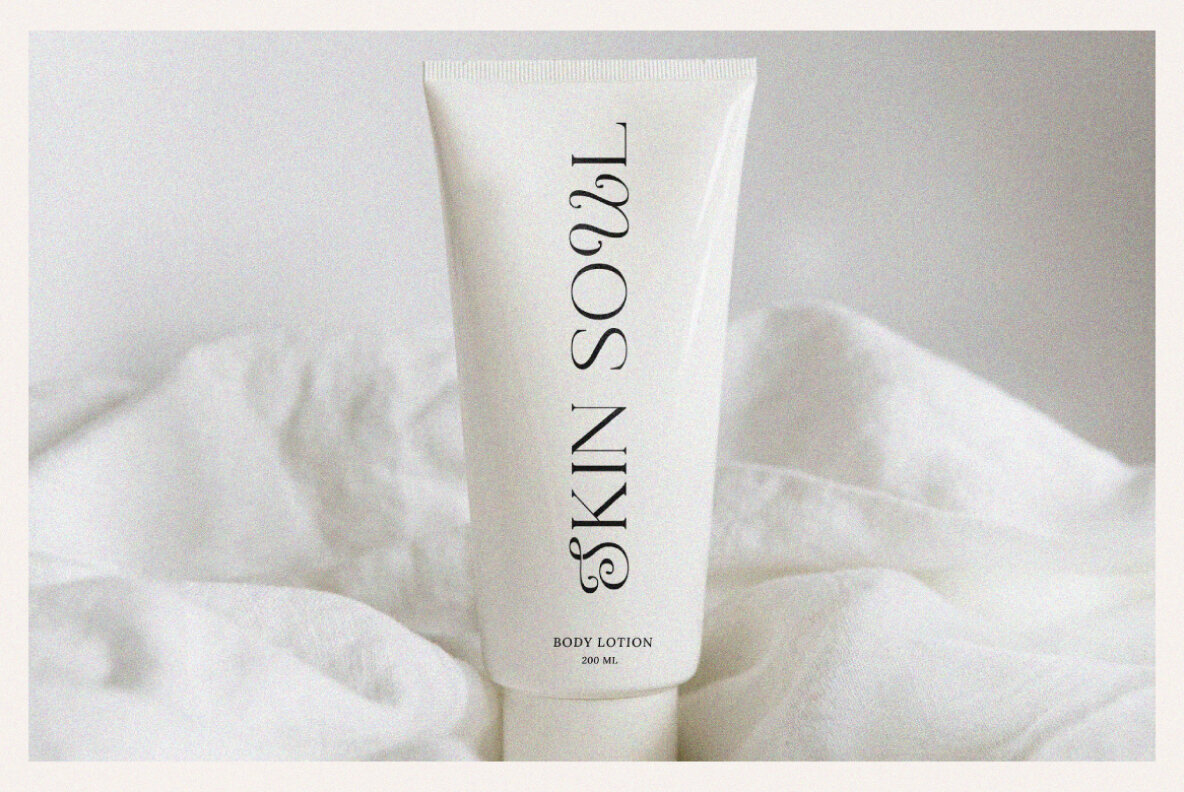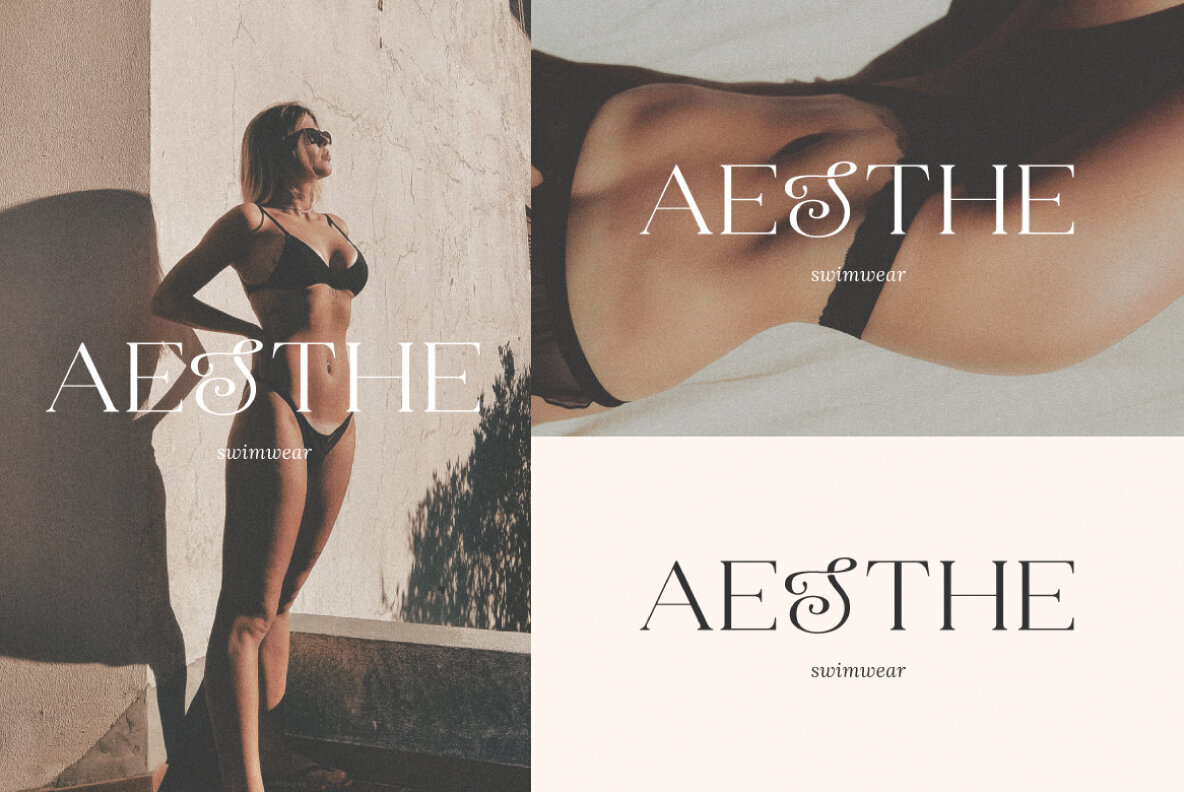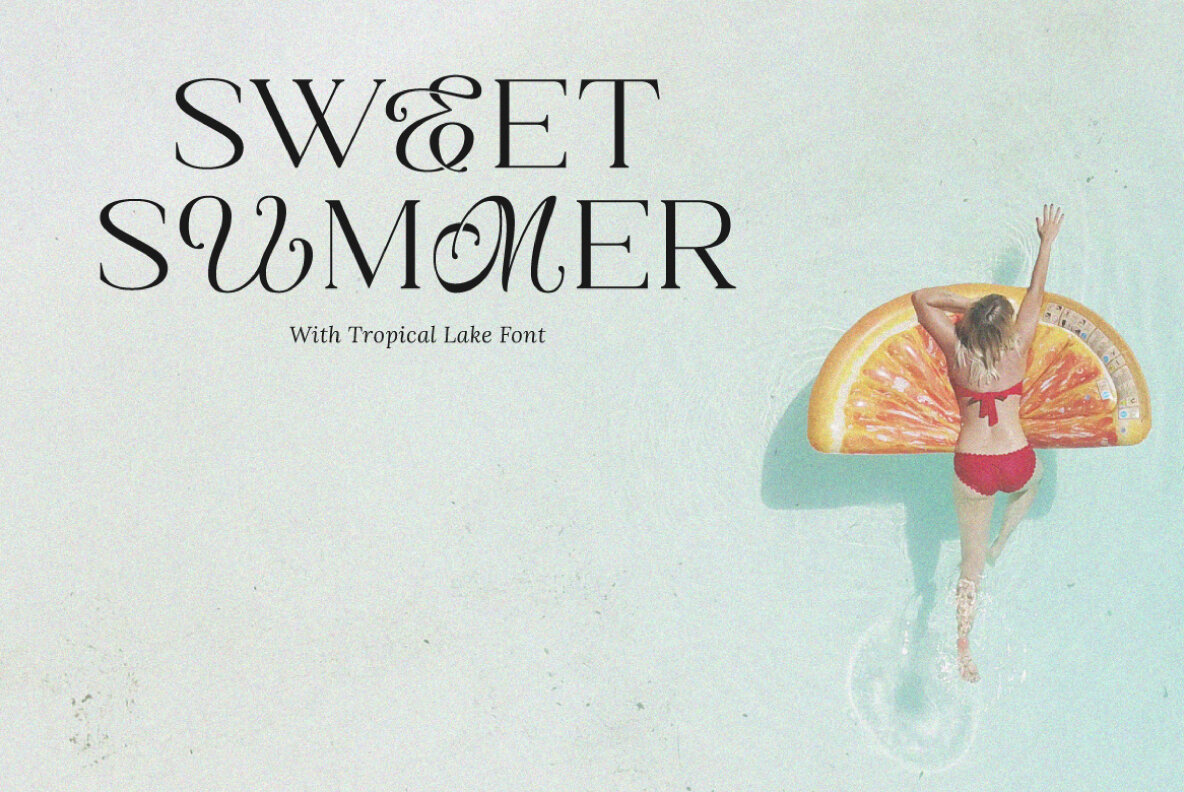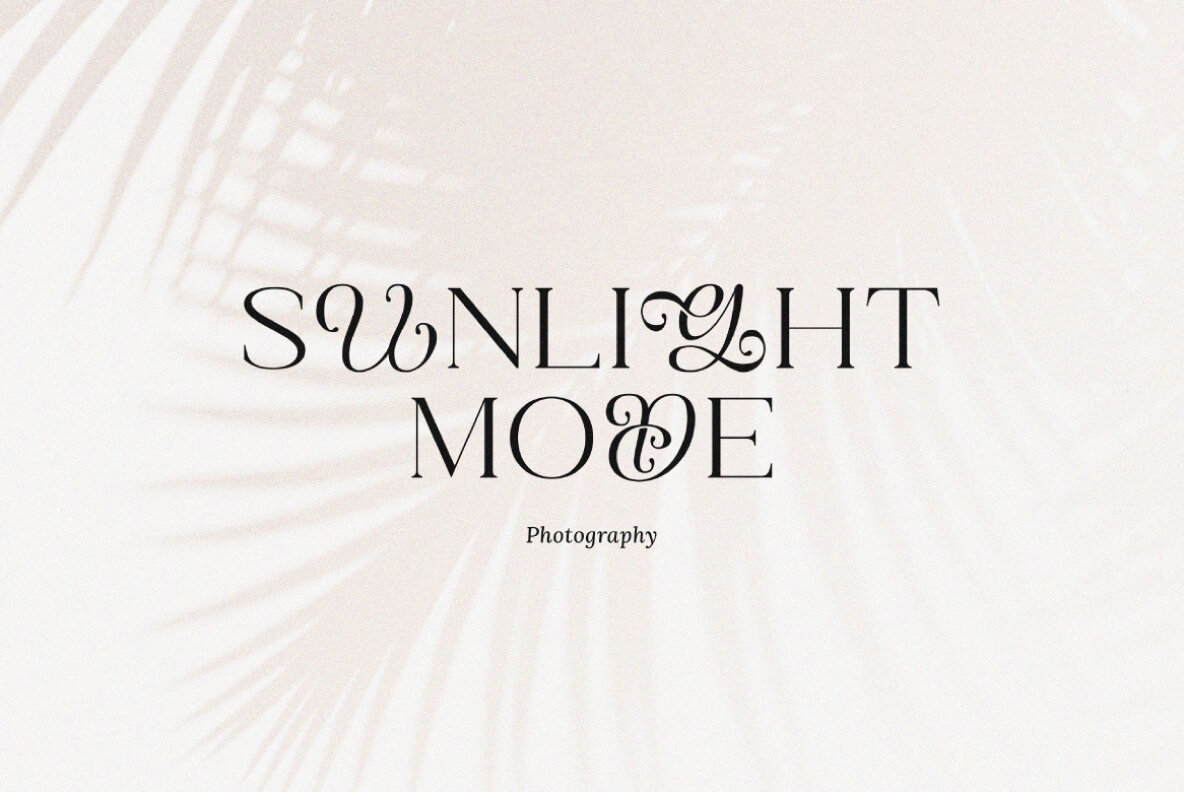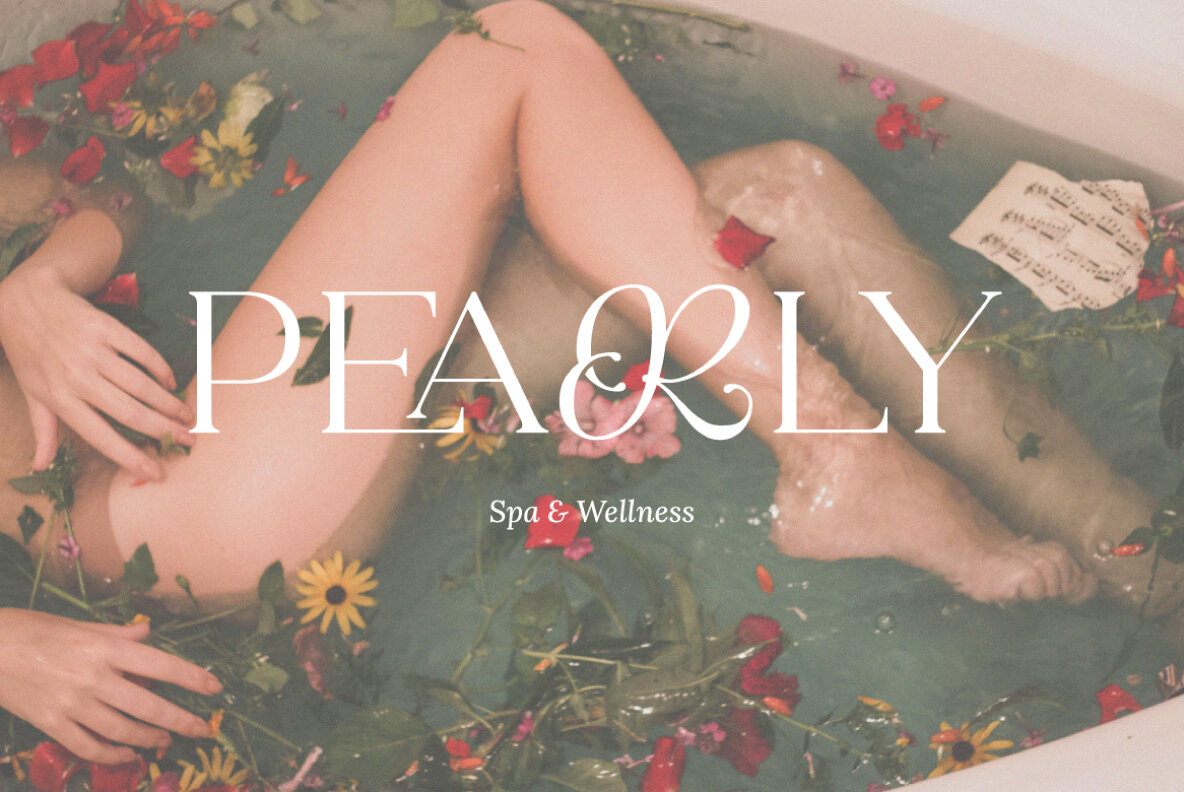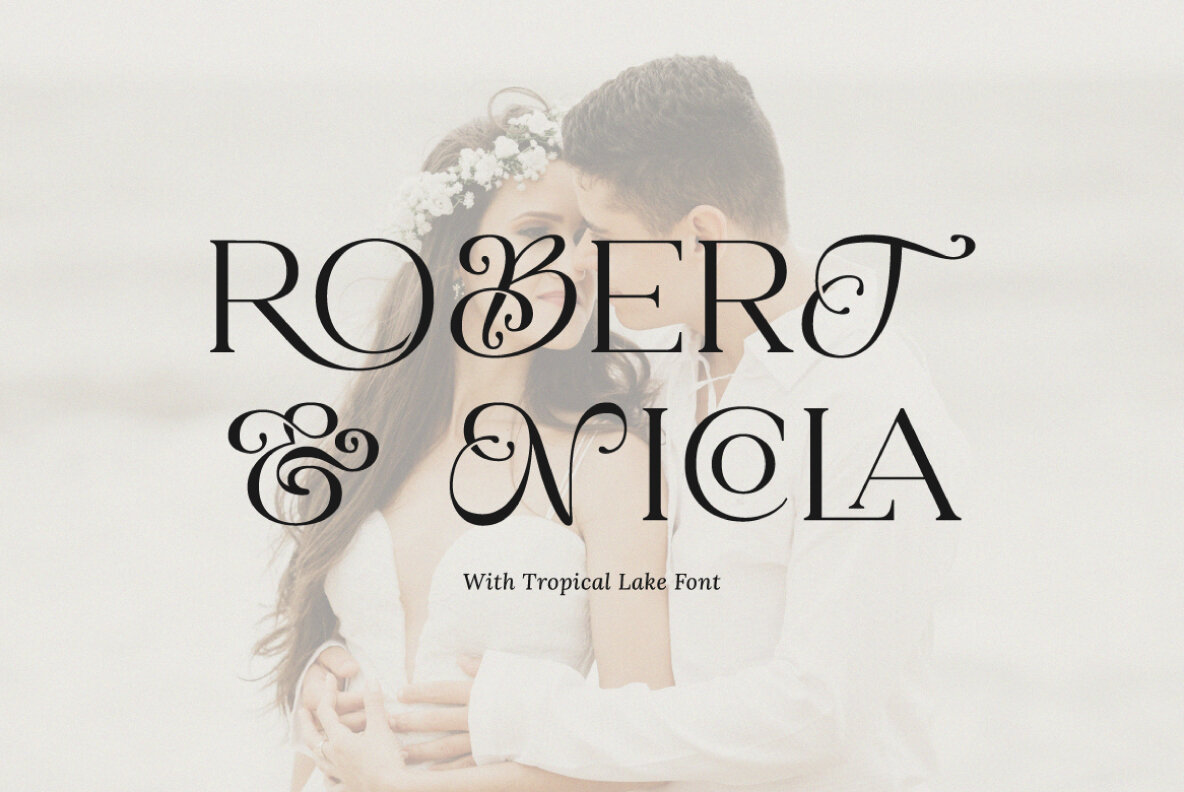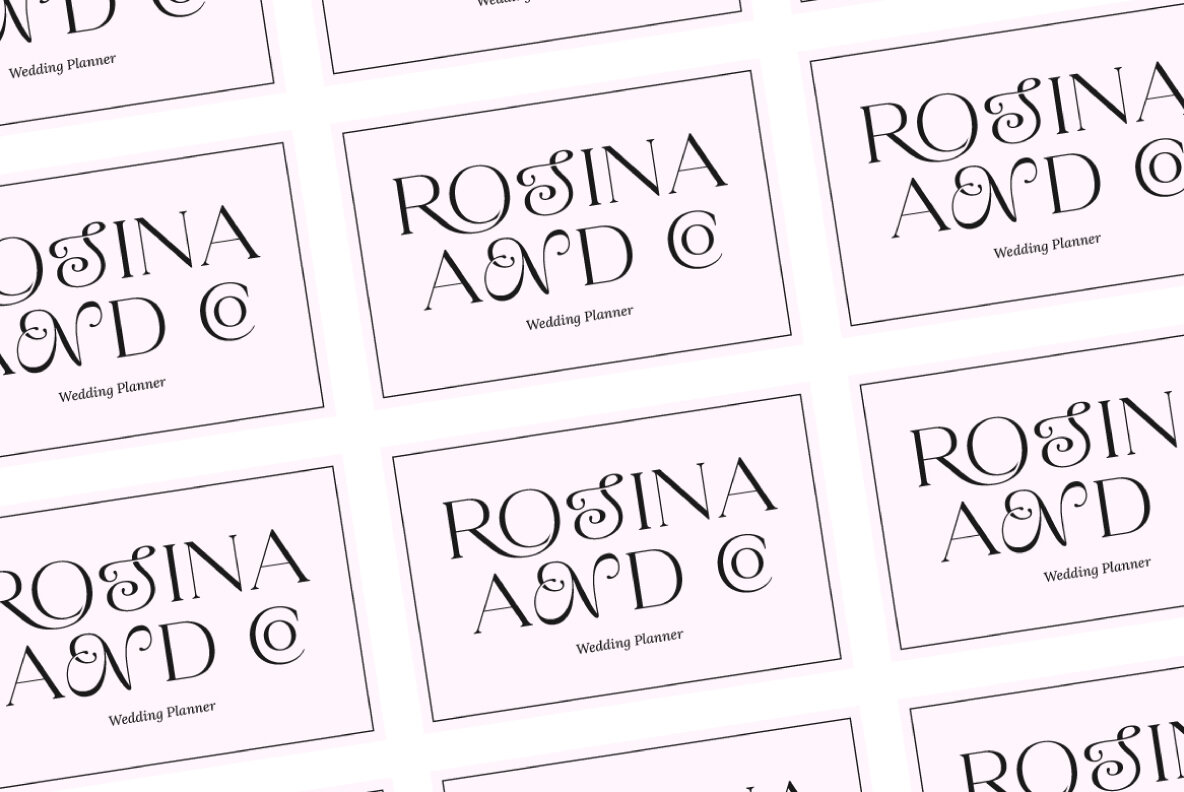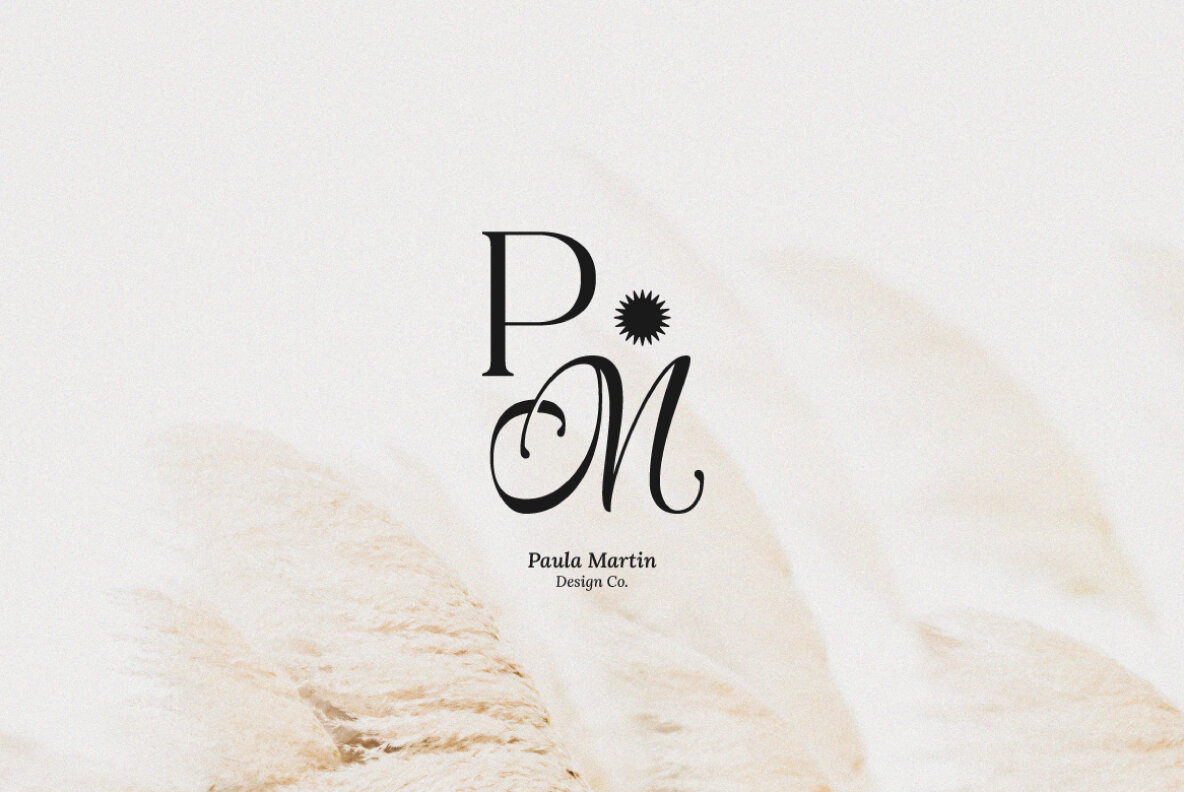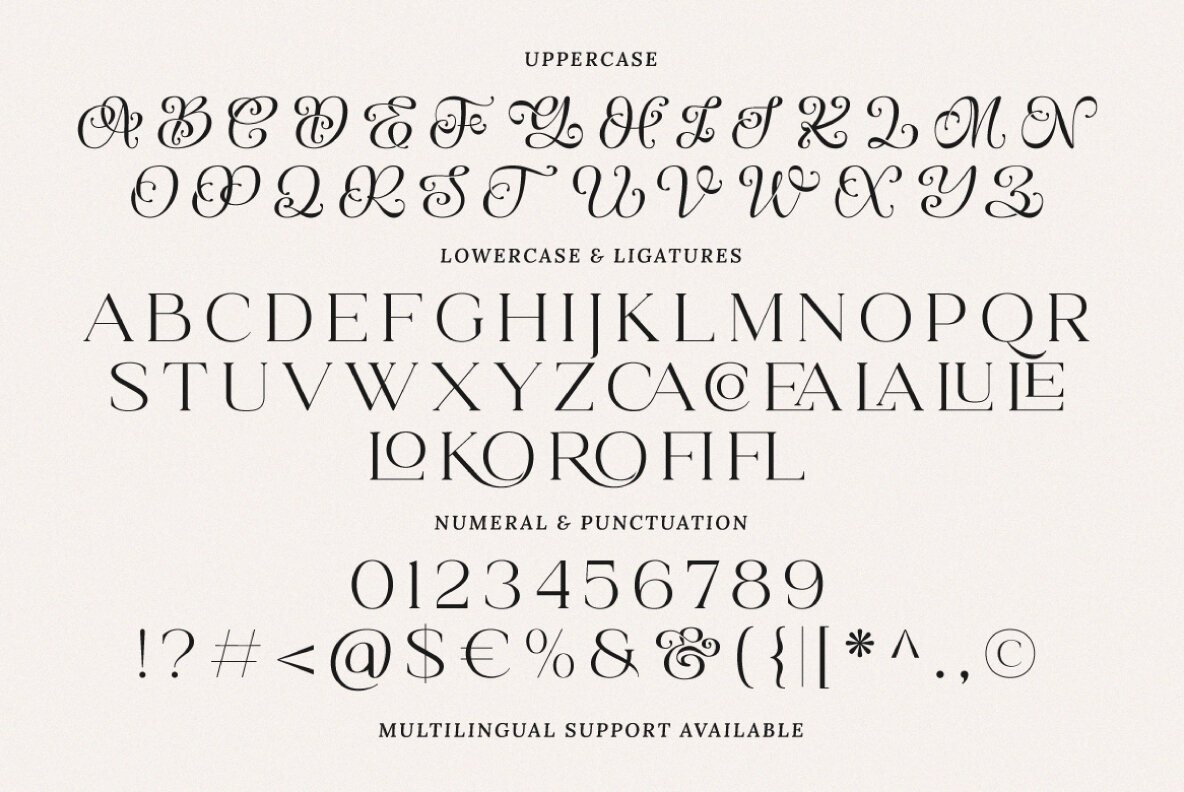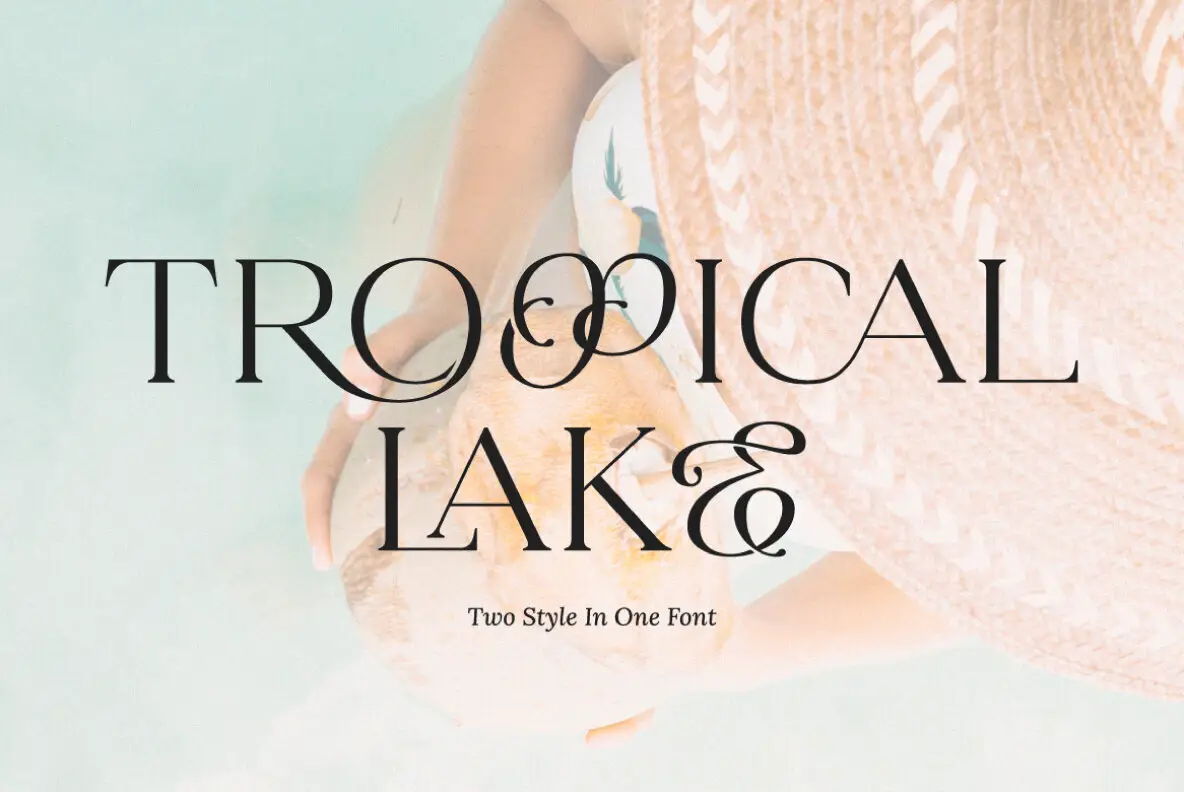
Tropical Lake Font
Tropical Lake
Tropical Lake by Prioritype Co offers a beautiful array of letter combinations that are designed to streamline your creative process. This versatile font is ideal for branding, titles, logos, wedding invitations, and more, providing a perfect typographic solution for various design needs.
Featuring a comprehensive set of characters, Tropical Lake includes uppercase and lowercase letters, numerals, punctuation, and an array of ligatures. Additionally, it is PUA encoded, allowing full access to its extensive features.